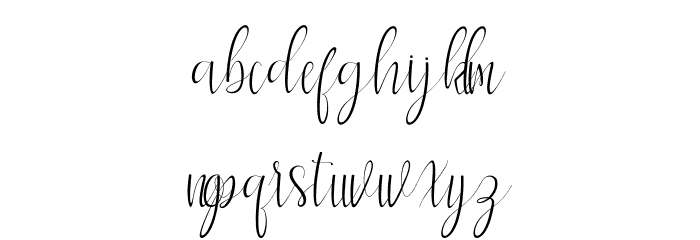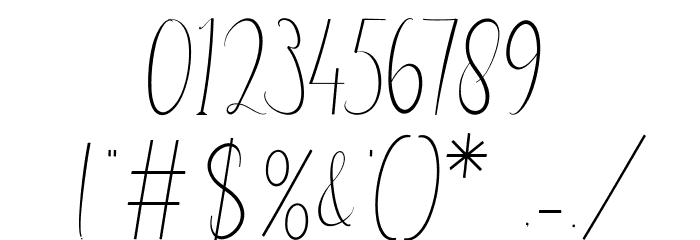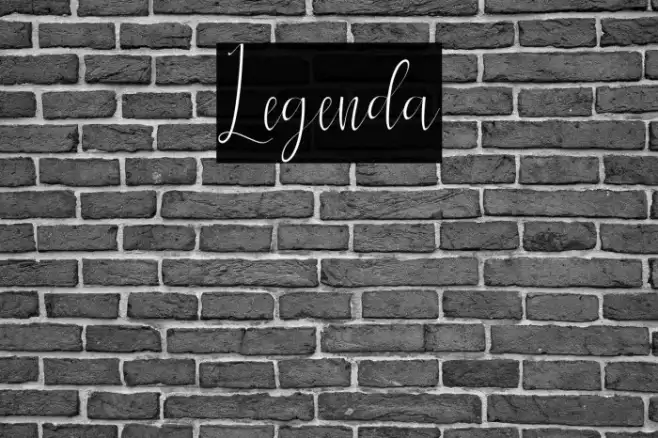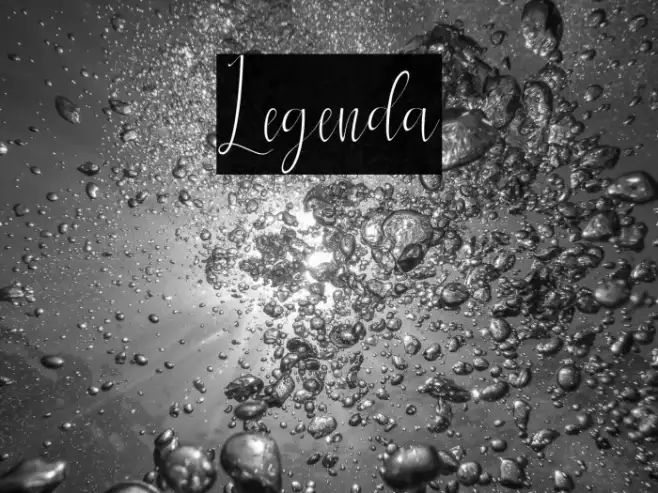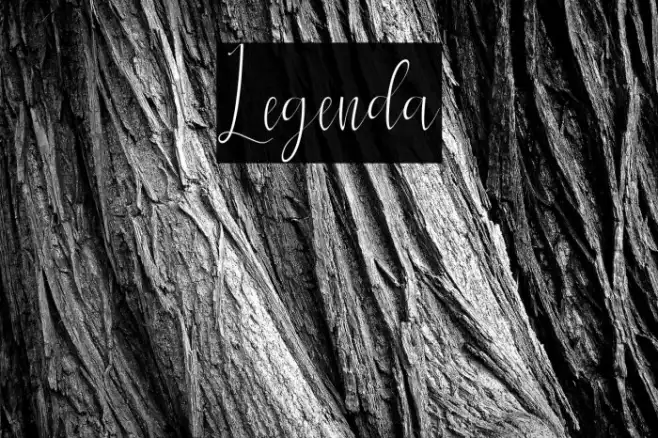
Legenda Font
This elegant script font features a delicate and flowing style, characterized by its thin, graceful strokes and subtle curves. The uppercase letters exhibit a sophisticated flair with elongated ascenders and descenders, creating a sense of movement and fluidity. The lowercase letters maintain a consistent style, complementing the uppercase with their own gentle curves and loops. The numerals are distinct yet harmonious with the overall design, while the special characters add a touch of whimsy. This font's airy and light appearance makes it ideal for projects that require a touch of elegance and sophistication.
An elegant, flowing script font with delicate, graceful strokes.
- Font: Legenda
- Proposed Projects: Ideal for wedding invitations, elegant branding, greeting cards, and high-end product packaging.
- Category: Script
- Weight: Light
- Character Spacing: Wide
- Overall Style: Elegant, Sophisticated
- Use Case: Headlines, Invitations, Branding